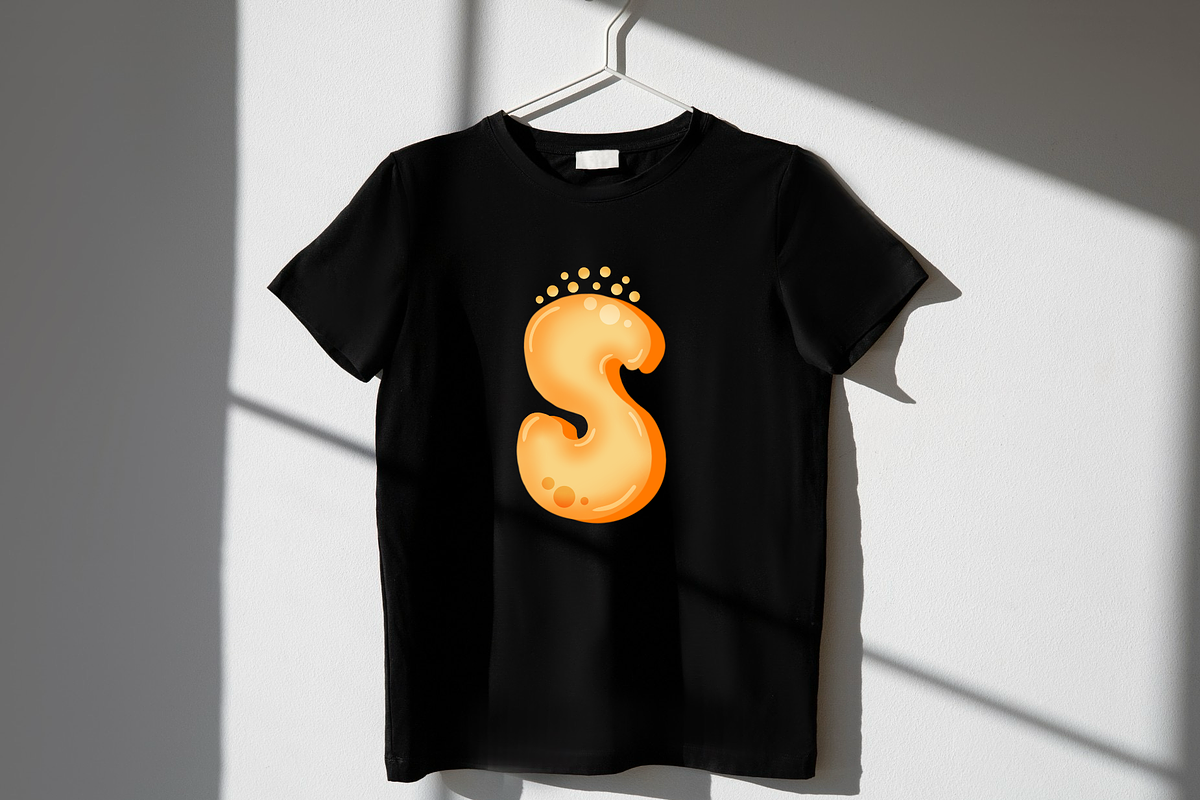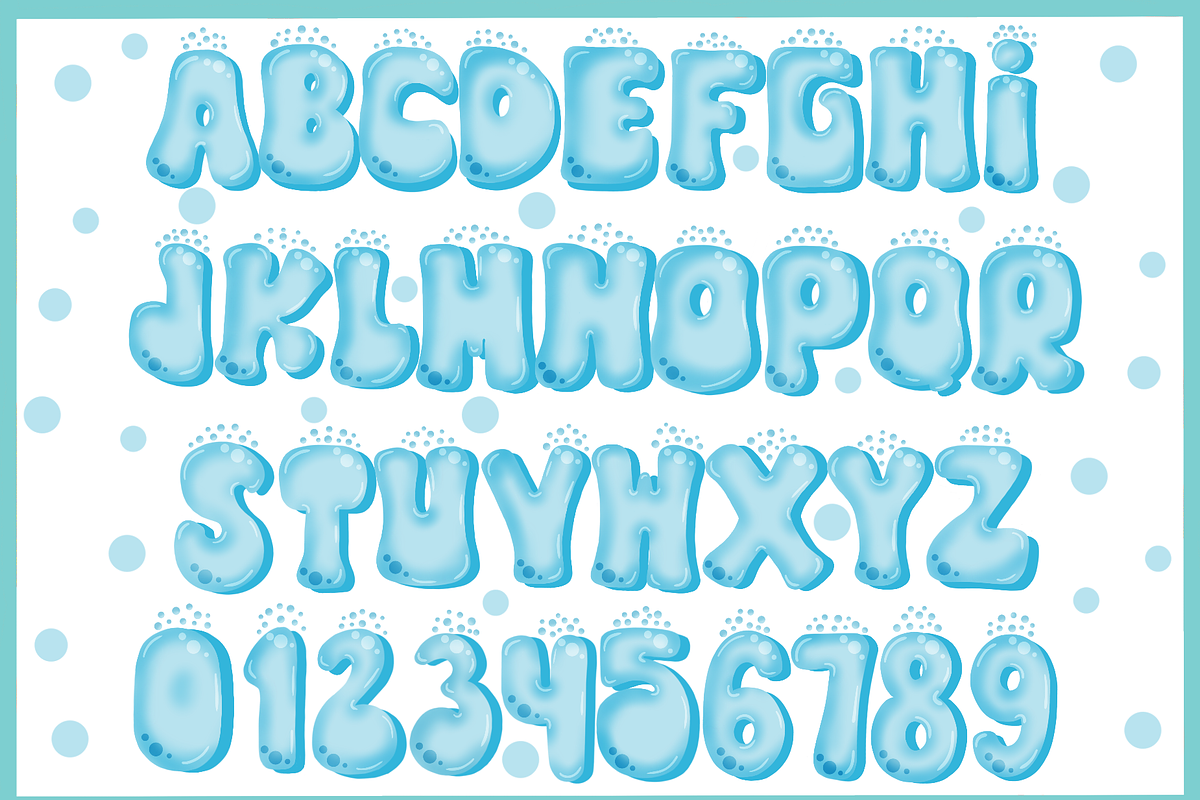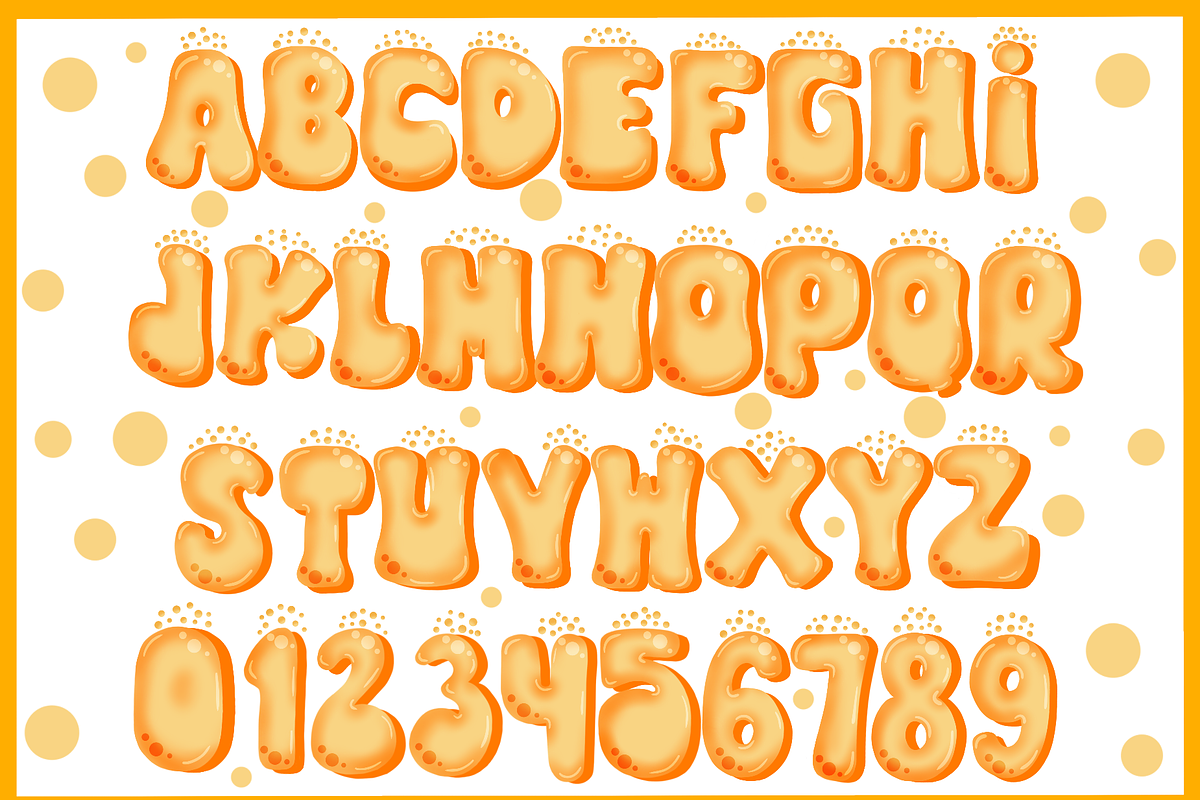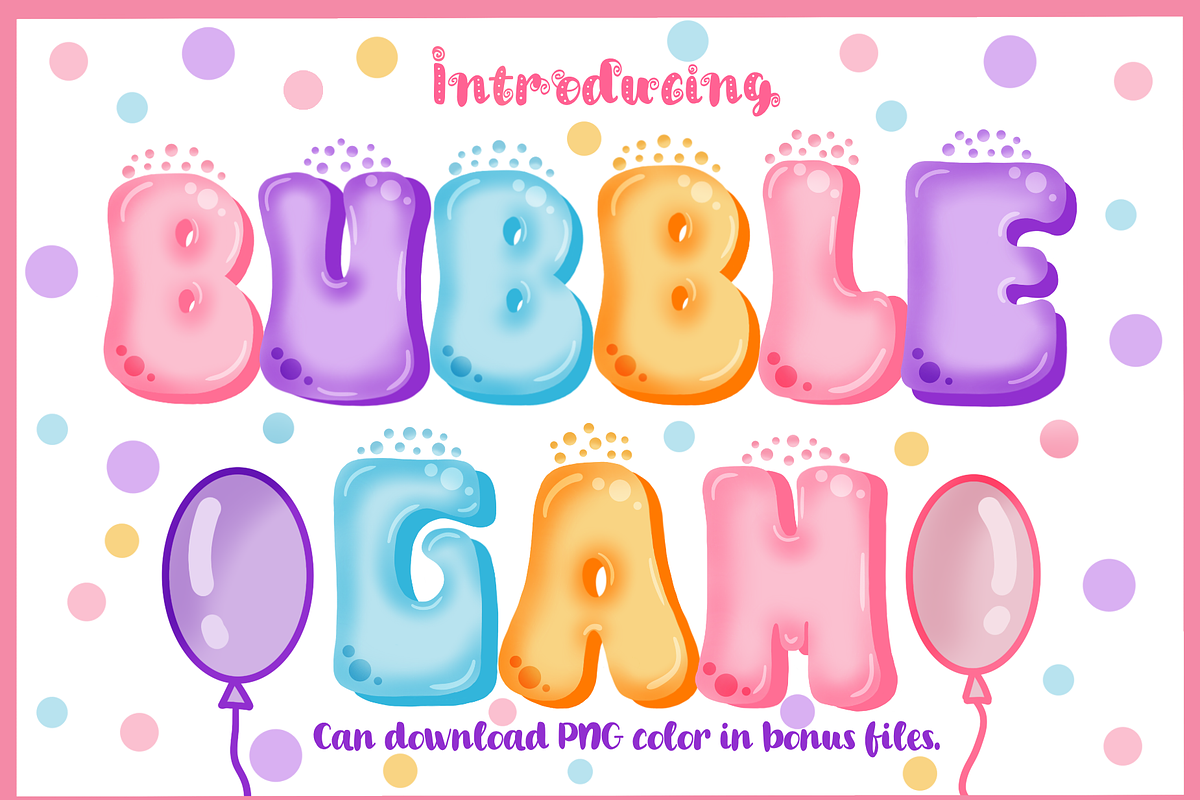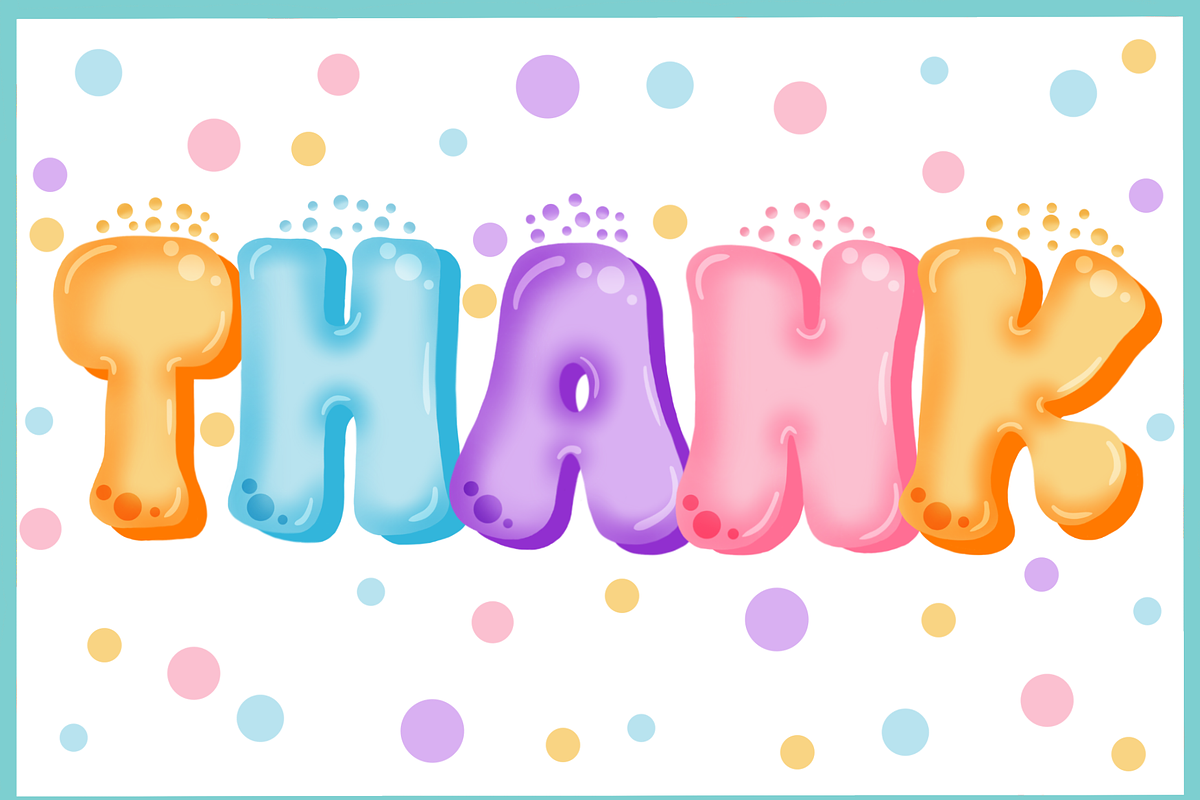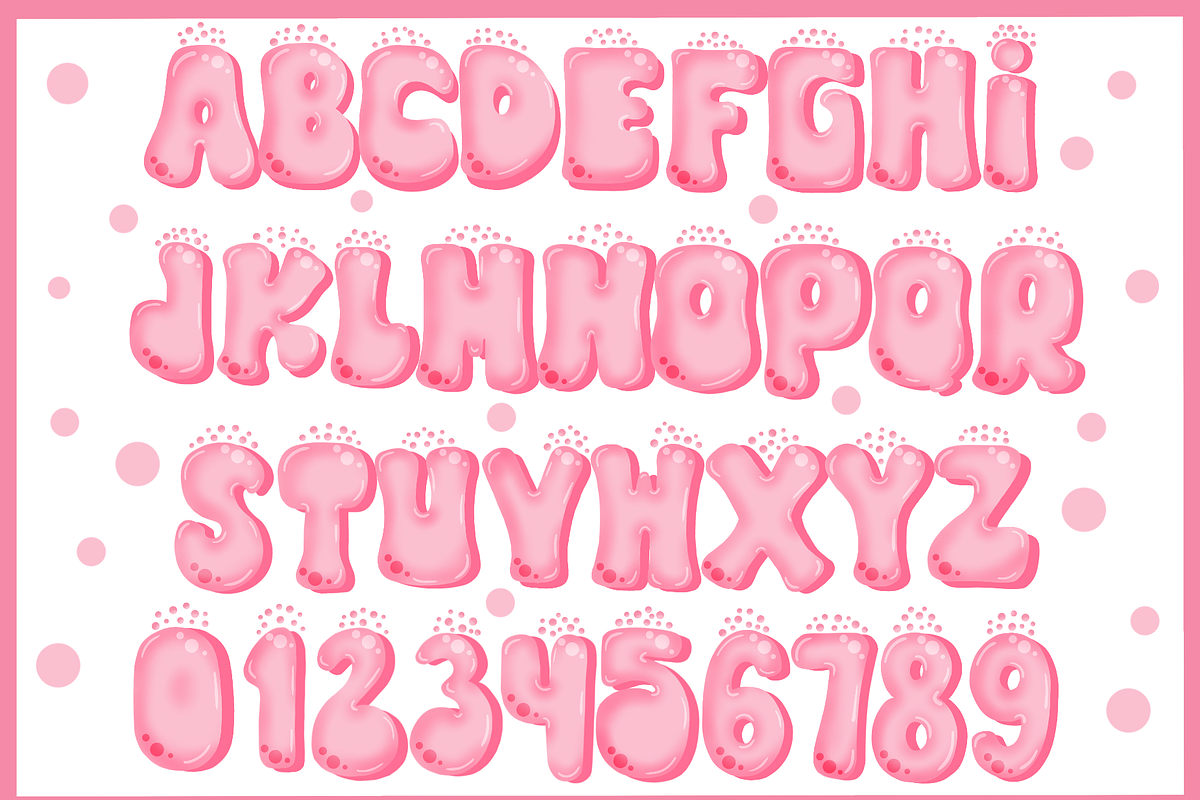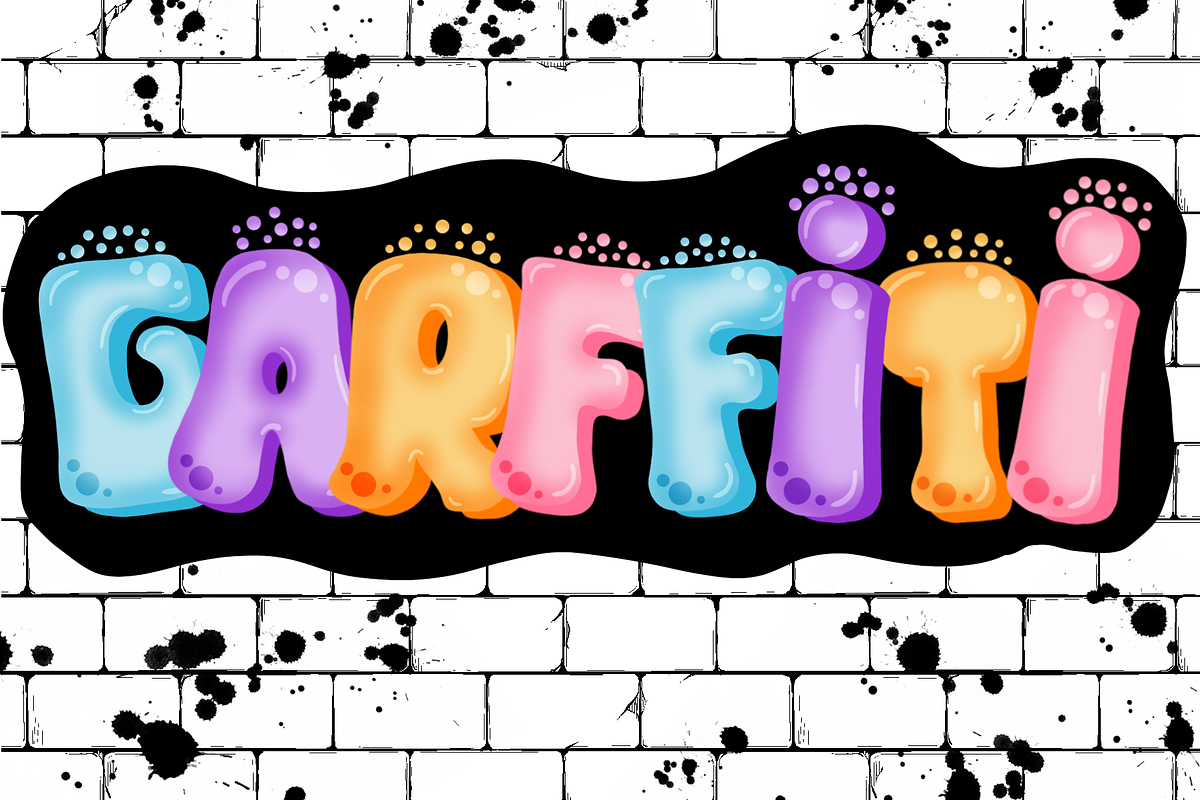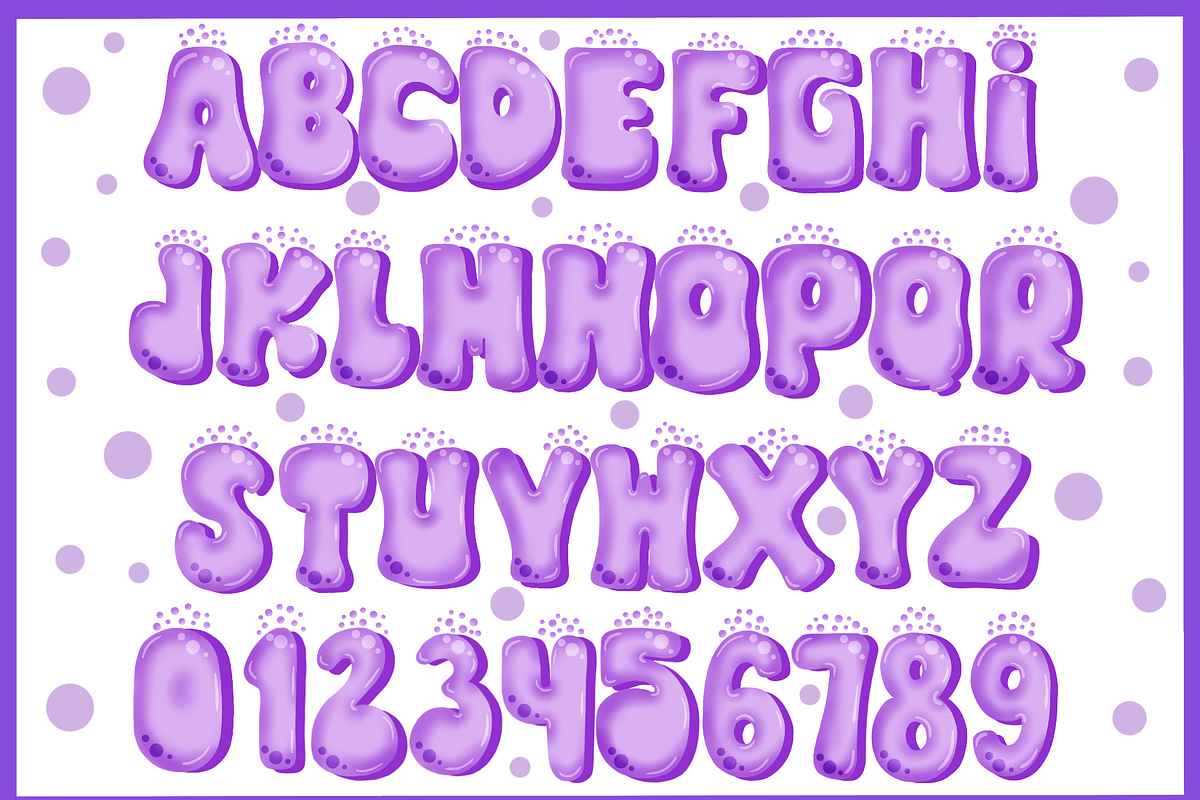
Bubble Gam-PNG fonts
Bubble Gam is a fun and bubbly font that adds a playful touch to your projects. Each letter features cute little bubbles on top, giving it a cheerful and lighthearted vibe. Perfect for adding a touch of whimsy to any design, Bubble Gam is sure to bring smiles to faces.